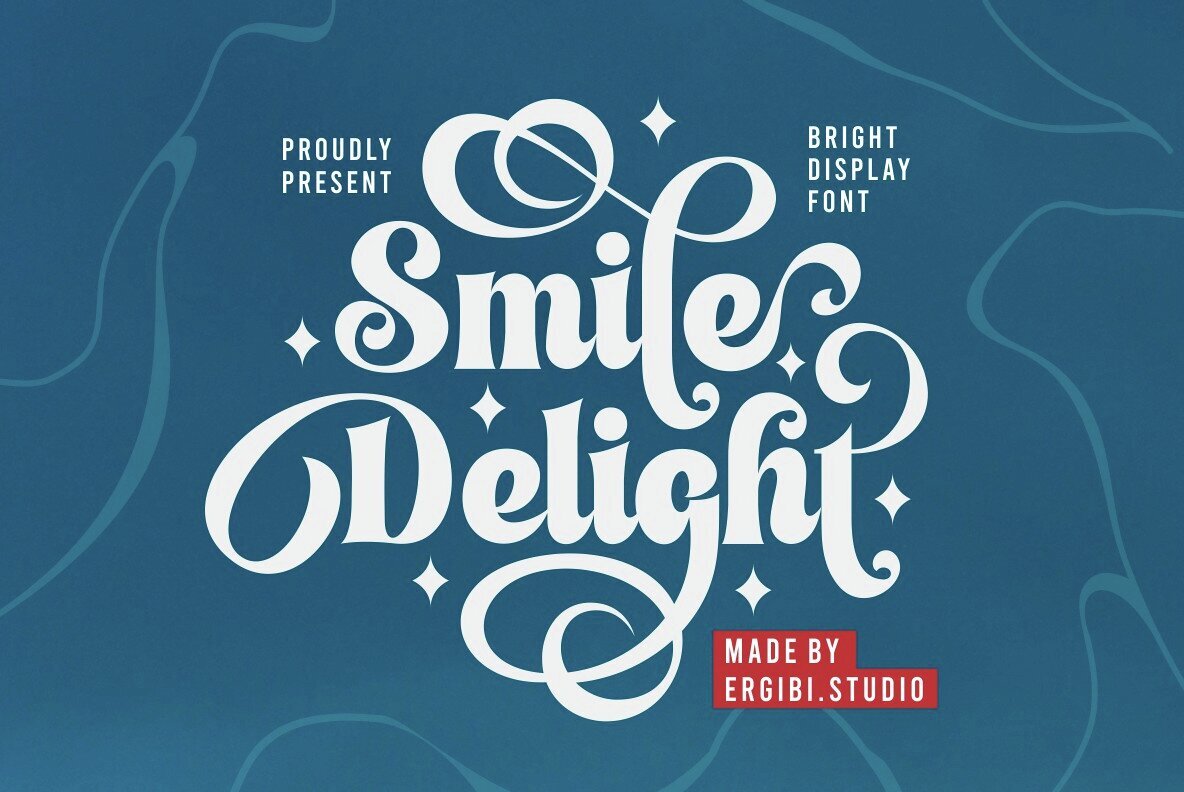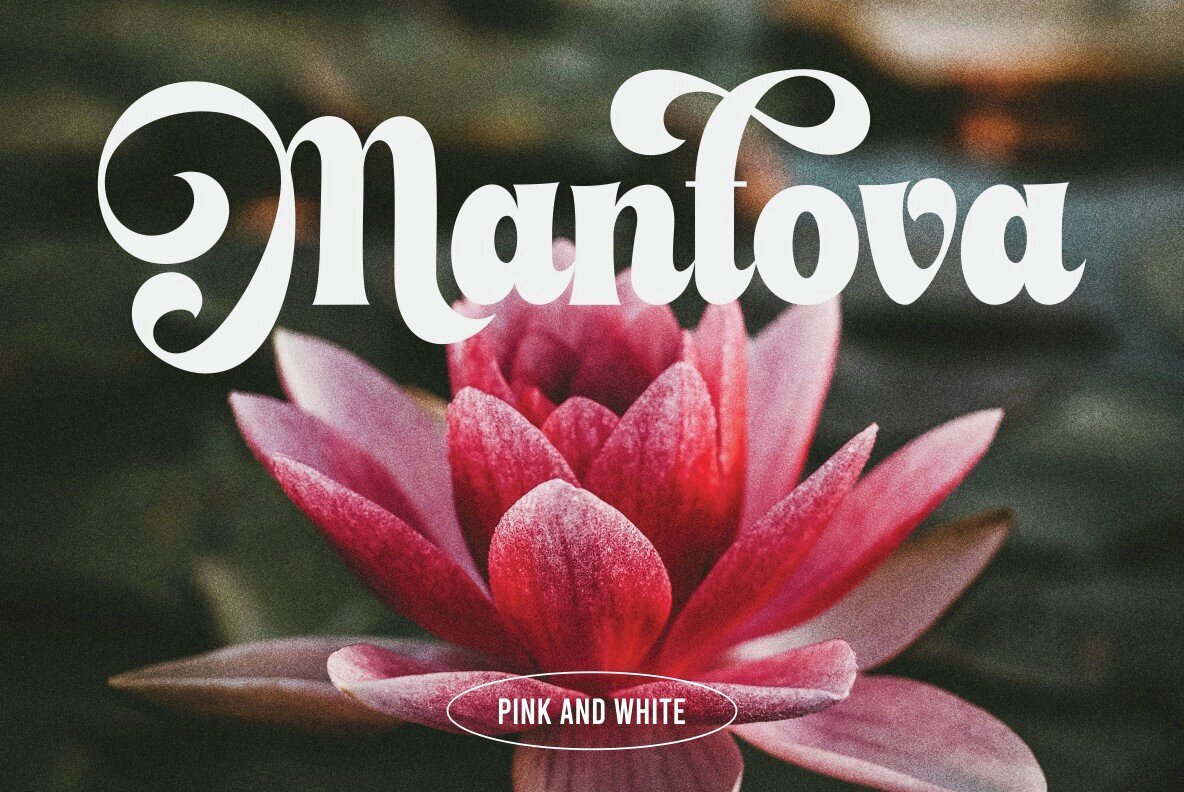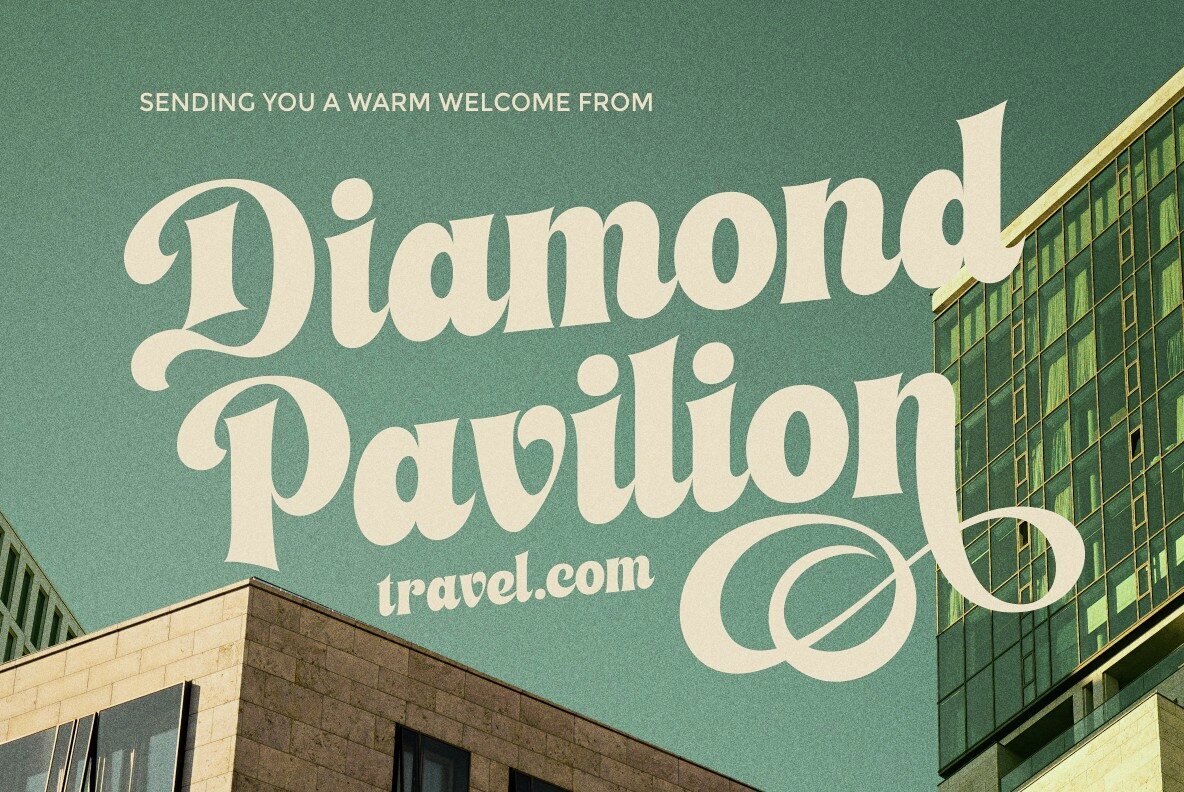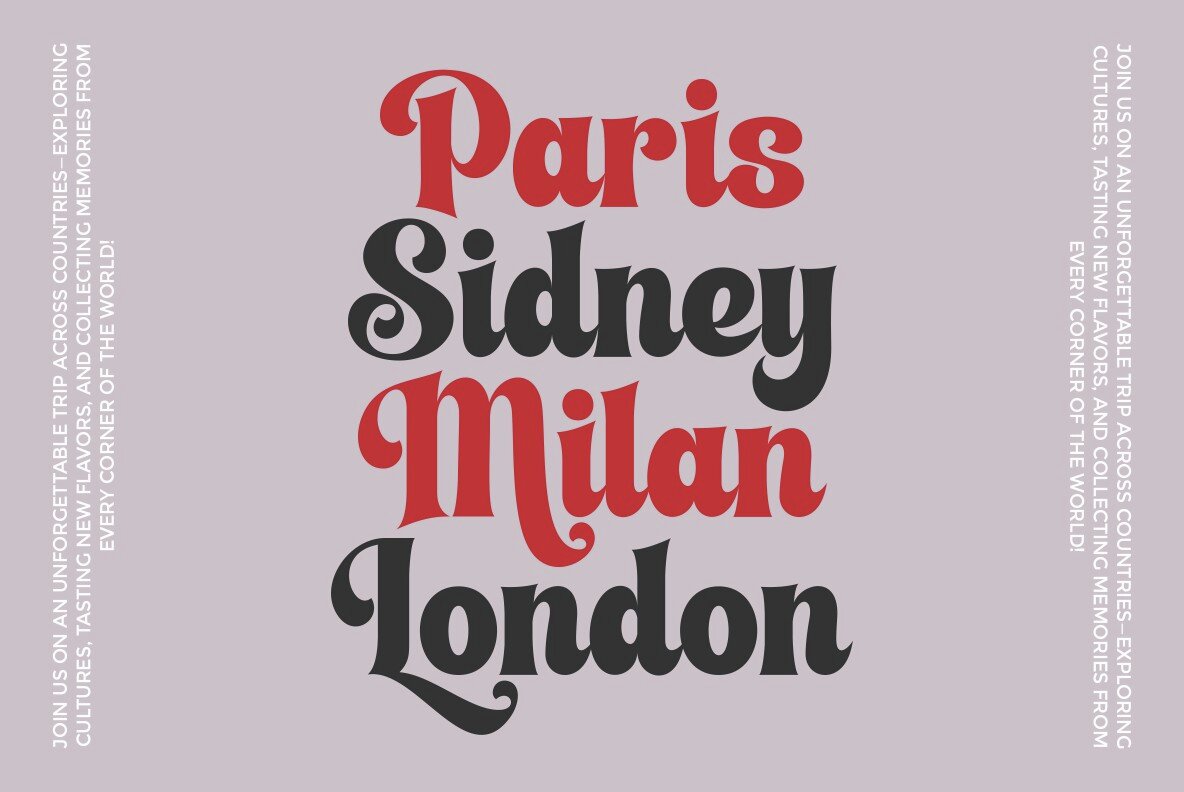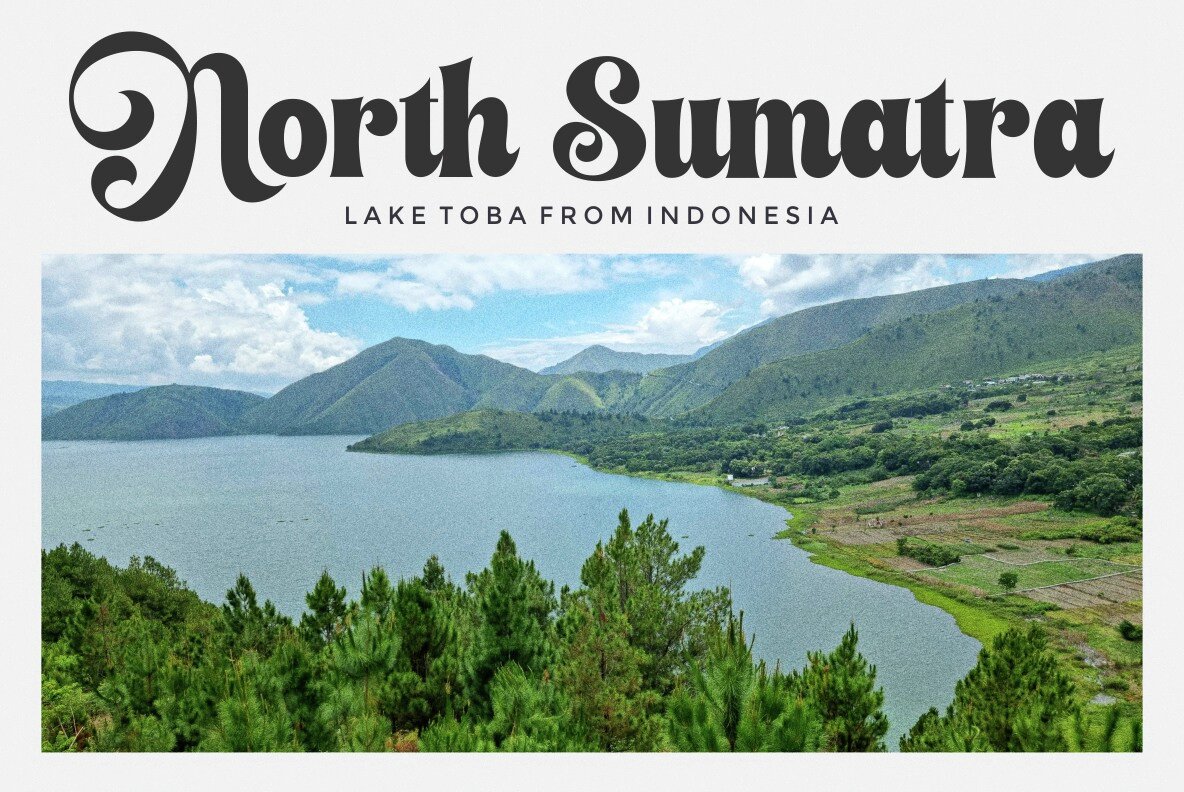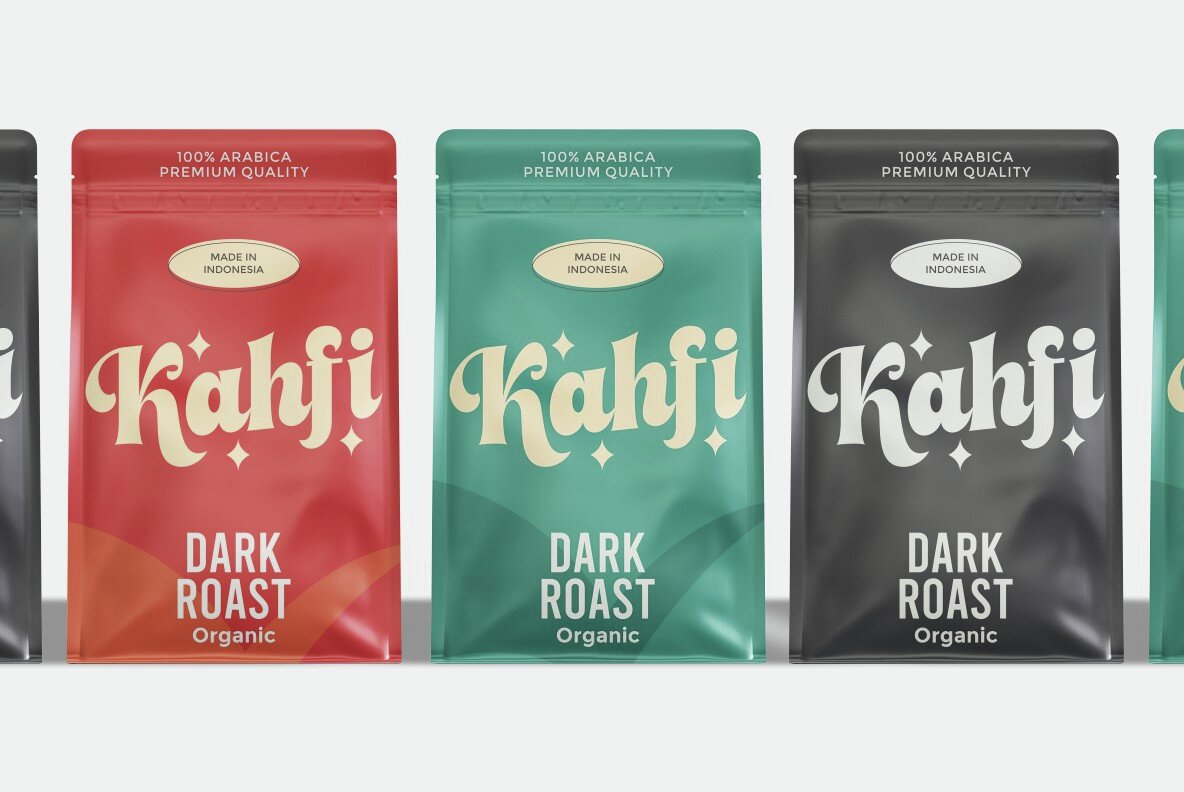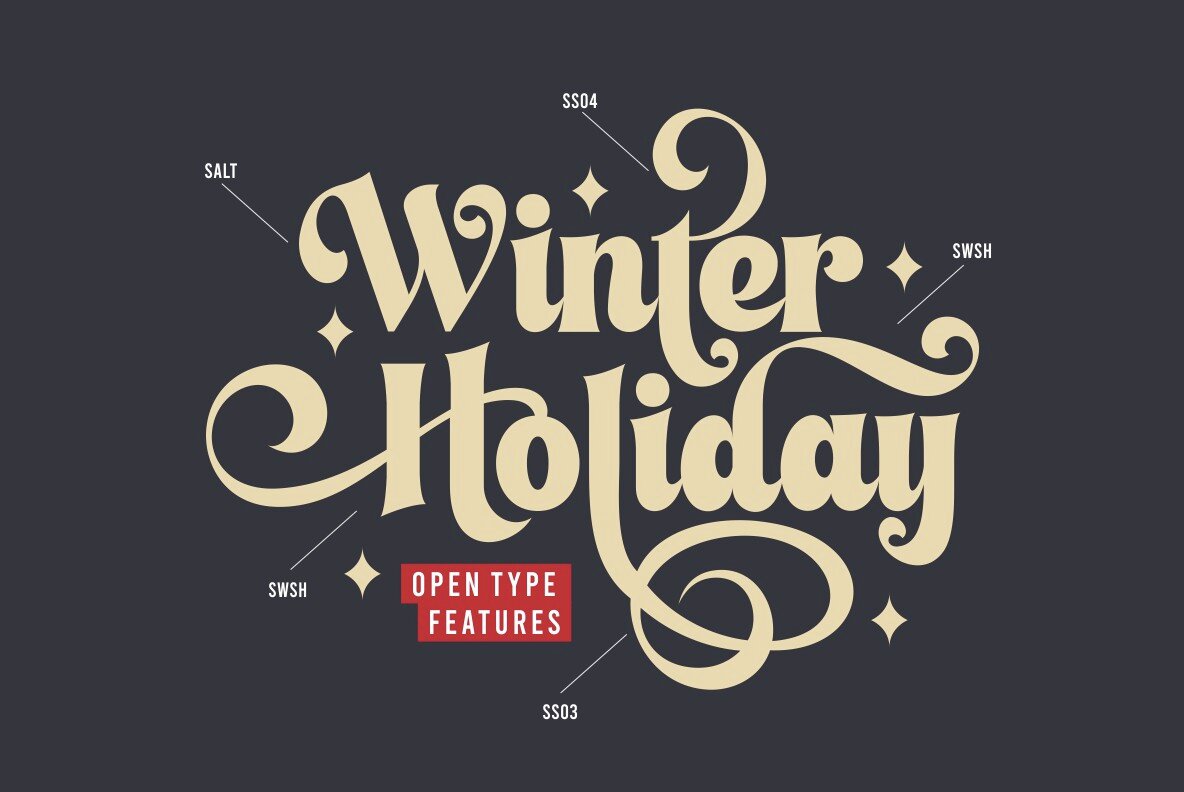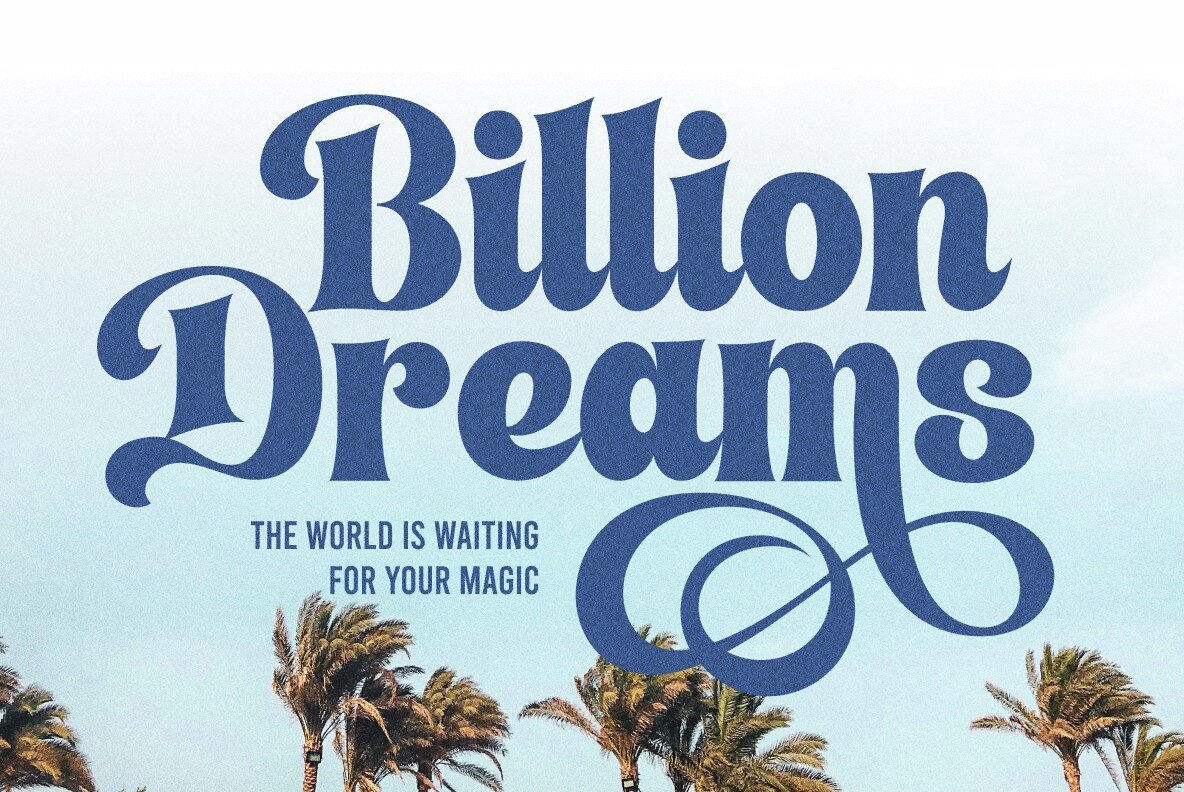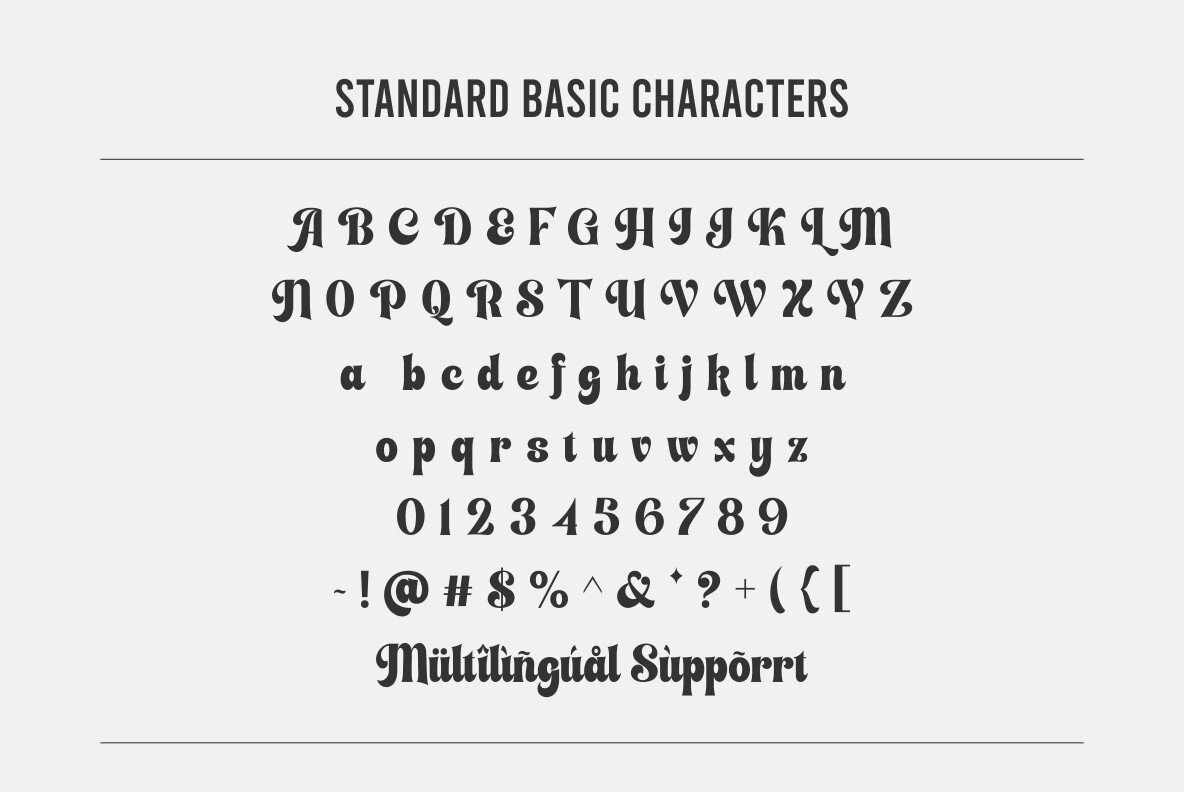
Smile Delight Font
Smile Delight
Smile Delight is a captivating bold display font that exudes confidence, joy, and creativity. Its thick strokes and playful curves are crafted to make a visual statement. Ideal for headlines, posters, branding, and packaging, this font instills a sense of cheerful energy in every design. The bold character of Smile Delight ensures readability from afar, while its subtle letterform quirks introduce a distinctive charm to modern layouts. Whether you're crafting designs for fun events, trendy products, or vibrant digital campaigns, Smile Delight is your go-to typeface to infuse positivity and capture attention.Smile Delight: Bold Display Font